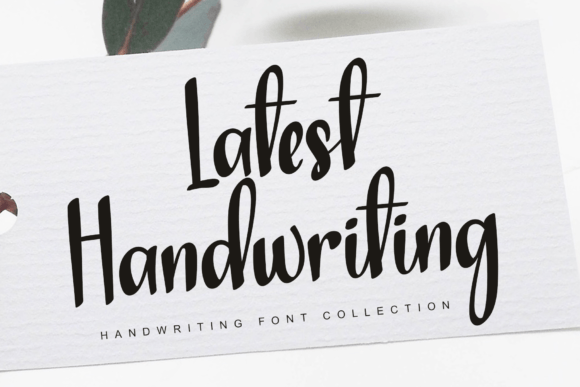
**Introducing the Latest Handwriting Font: The Epitome of Elegance and Beauty**
Step into the world of exquisite calligraphy with our groundbreaking Latest Handwriting Font, a masterpiece crafted by the renowned Creatype Designer. This mesmerizing script font graces your designs with an unparalleled charm, transporting you to a realm of sophistication and allure.
Indulge in a dance of enchanting curves and ethereal strokes as each letter unfolds its captivating beauty. Witness the seamless flow of ink, effortlessly translating your emotions onto every page. Whether you seek to immortalize your love on wedding invitations or express gratitude through heartfelt notes, Latest Handwriting Font is your ultimate companion.
Unleash your creativity with boundless possibilities, adorning your designs with a touch of timeless elegance. Let your business cards radiate professionalism, greeting cards exude warmth, and logos command attention with a sophistication that leaves a lasting impression.
**Dive Into a Sea of Versatility**
Prepare to be captivated by the versatility of our Latest Handwriting Font. Whether your canvas is digital or physical, this font adapts effortlessly to your every need. Its captivating charm adds a touch of magic to presentations, social media posts, and even the simplest of notes.
Imagine your words taking flight, soaring through the digital realm with an unmatched grace. Engage your audience with captivating visuals, where every post becomes a work of art. Let your social media presence bloom with a touch of elegance, turning every interaction into a memorable experience.
**A Masterpiece for Every Occasion**
Whether you're a seasoned designer or simply seeking to add a touch of flair to your personal projects, Latest Handwriting Font empowers you to create masterpieces that transcend the ordinary. Unleash your inner artist and let your imagination soar, transforming your designs into breathtaking works of art.
With Latest Handwriting Font, you'll never be short of inspiration. Its versatility knows no bounds, making it the perfect choice for a myriad of projects. From heartfelt love letters to stunning posters, this font seamlessly adapts to your every need.
**Embrace the Beauty of Handwritten Charm**
In an era of digital dominance, embrace the timeless beauty of handwritten charm. With our Latest Handwriting Font, you'll effortlessly add a touch of authenticity to your designs. Its elegant curves and flowing strokes evoke a sense of nostalgia, reminding us of simpler times when penmanship was an art form.
Allow your designs to whisper tales of love, gratitude, and inspiration. Let your words dance across the page with an intimacy that only a handwritten font can convey. Whether you're crafting a heartfelt message or designing a captivating logo, Latest Handwriting Font empowers you to make a lasting impression.